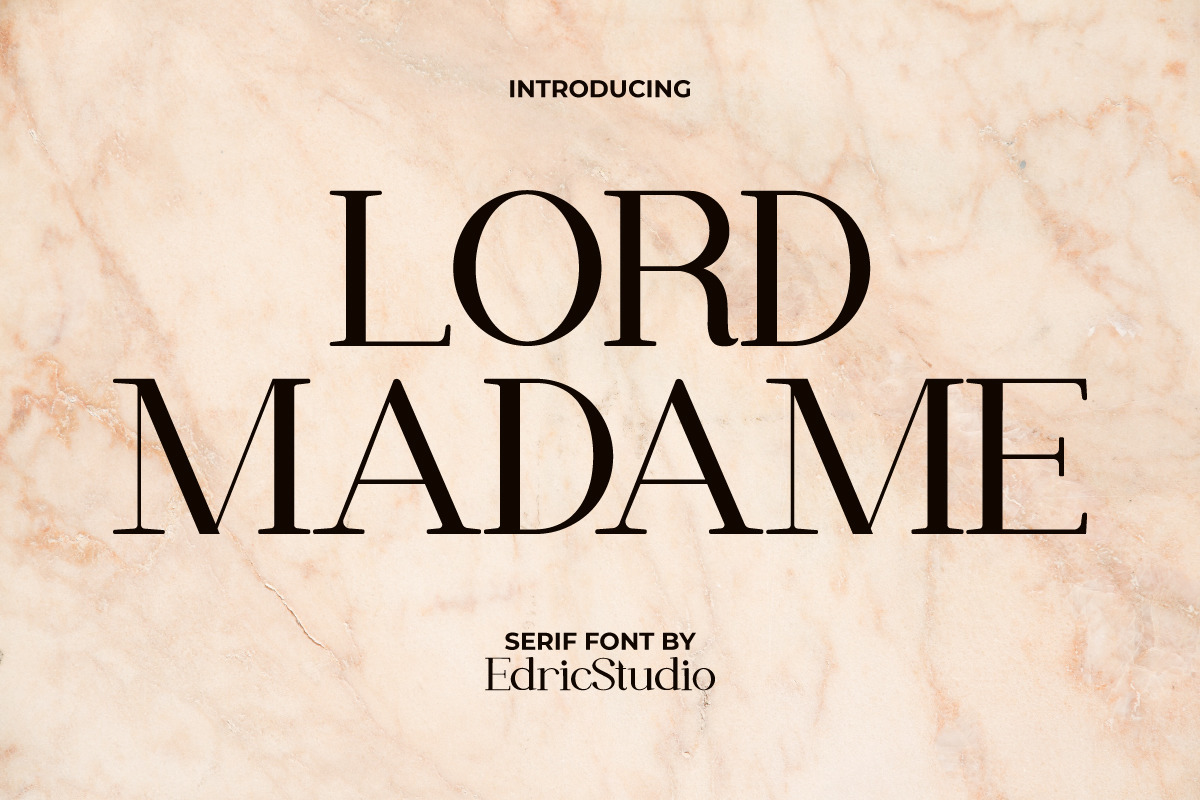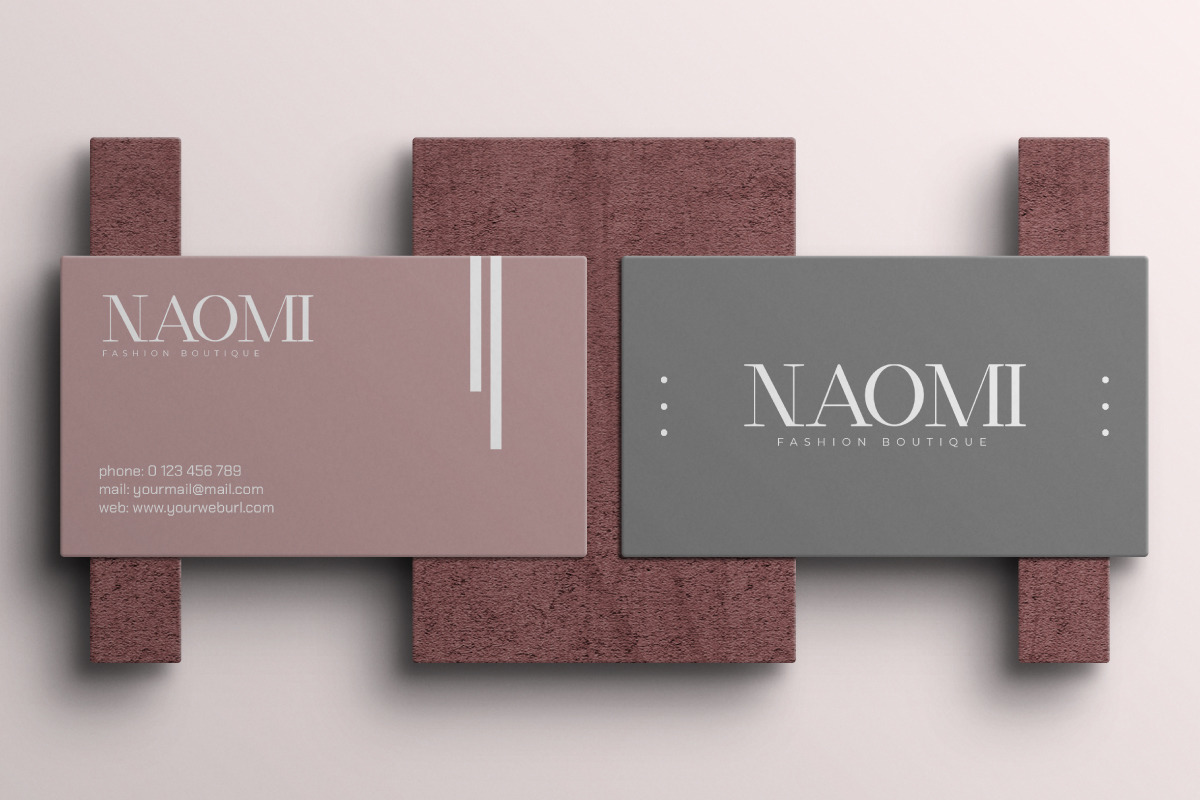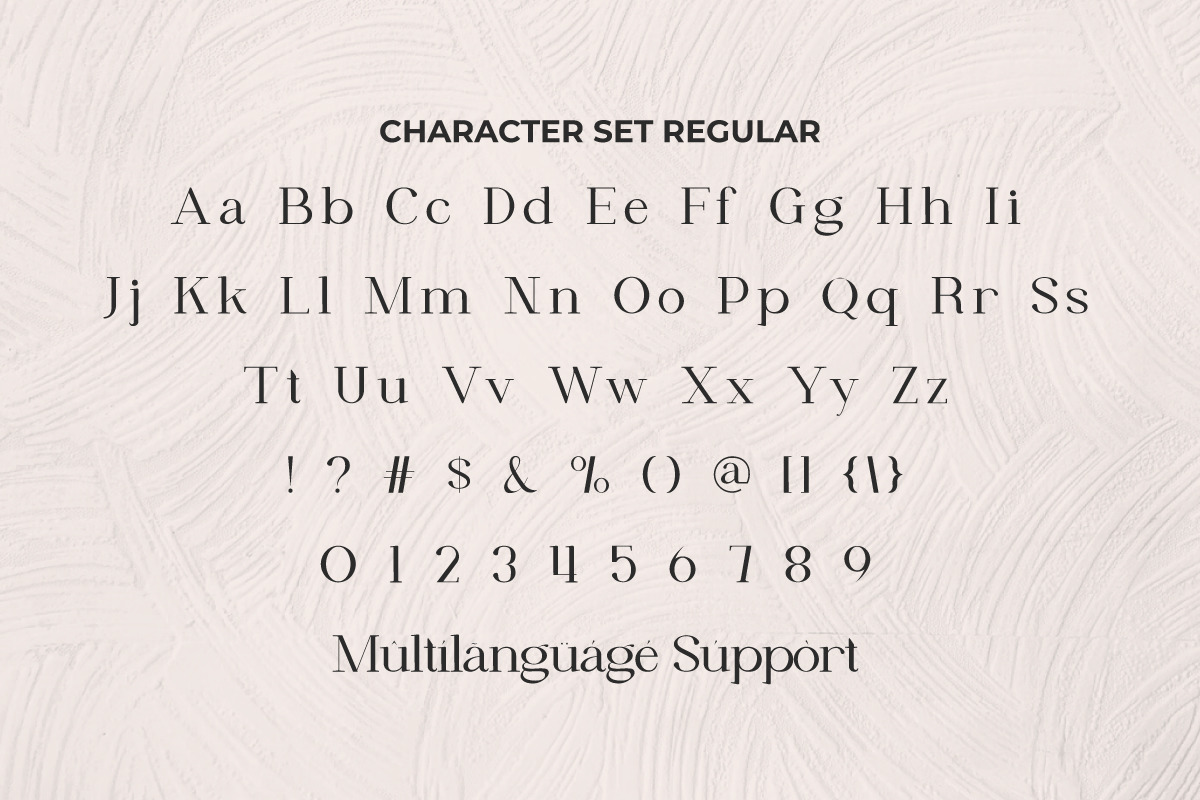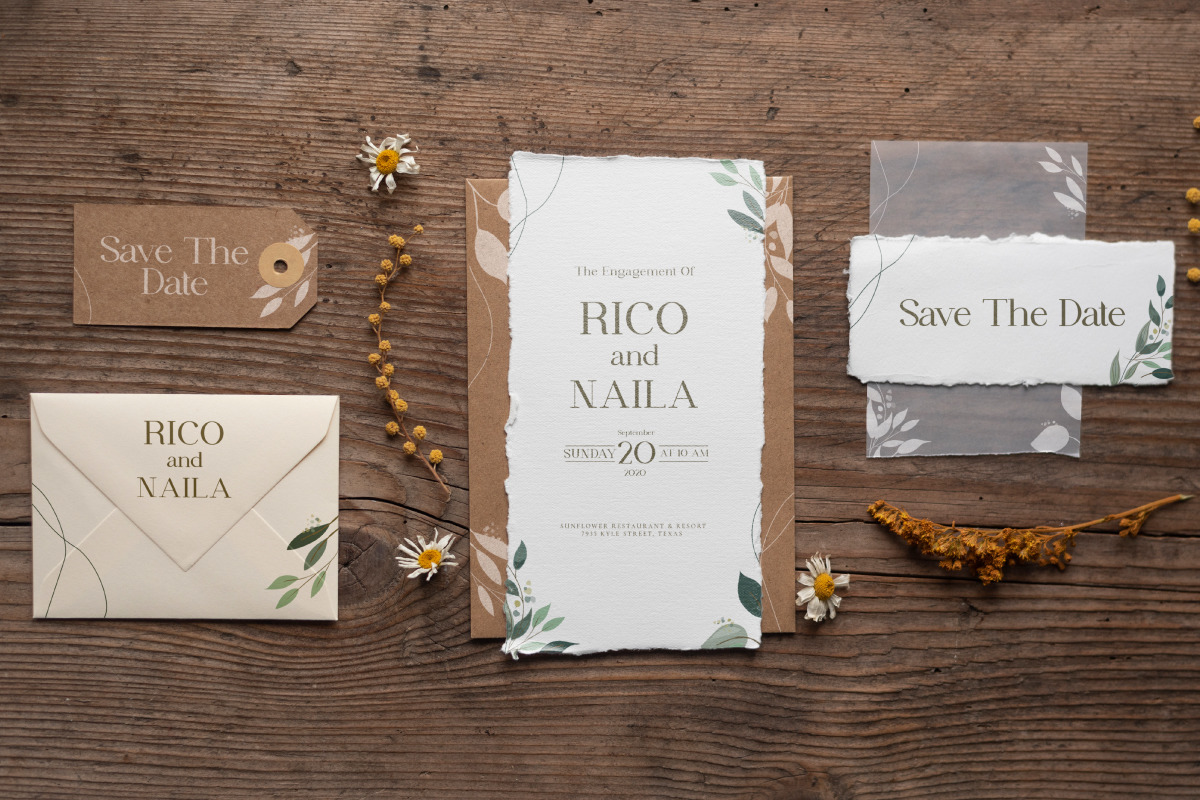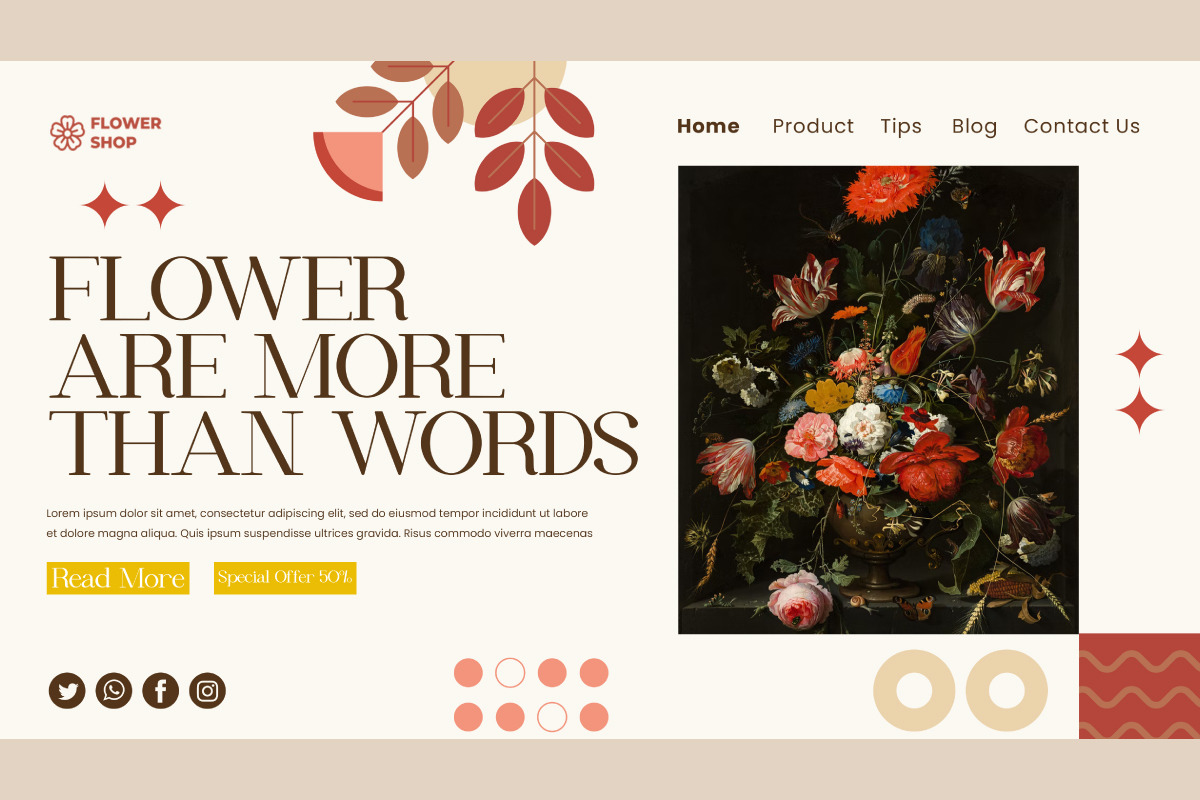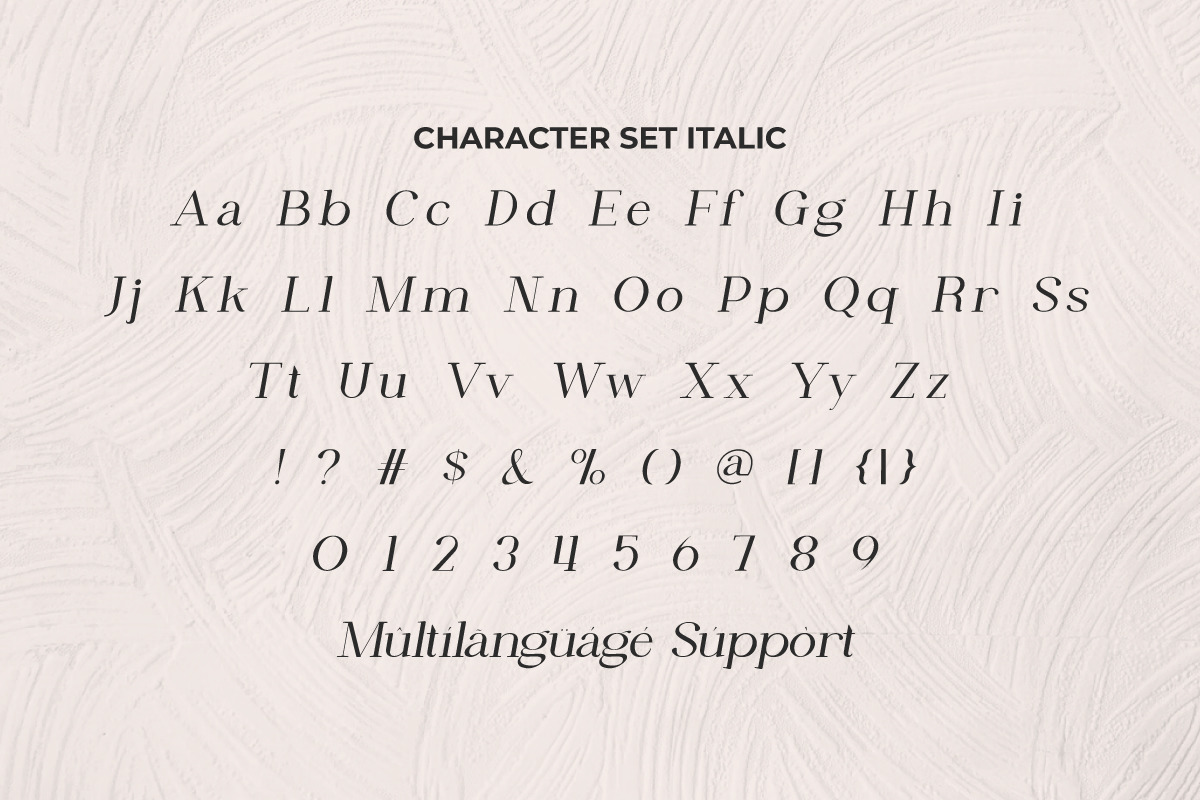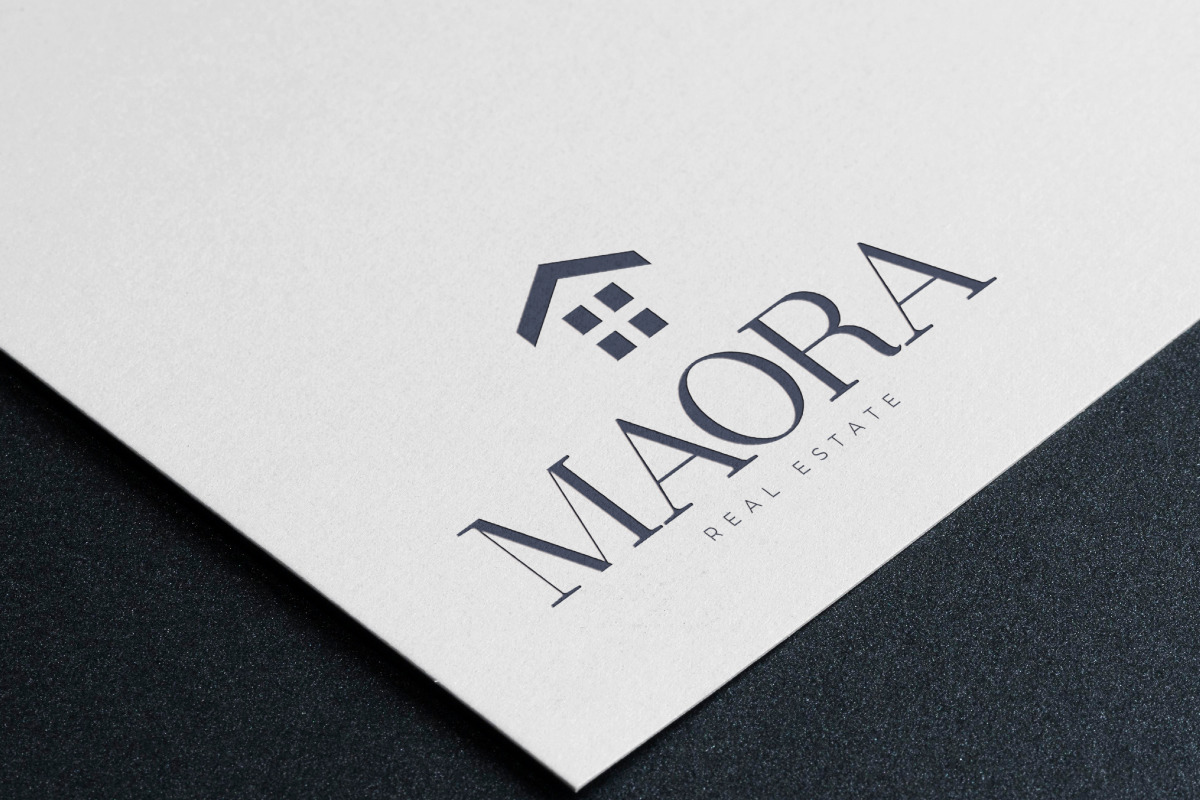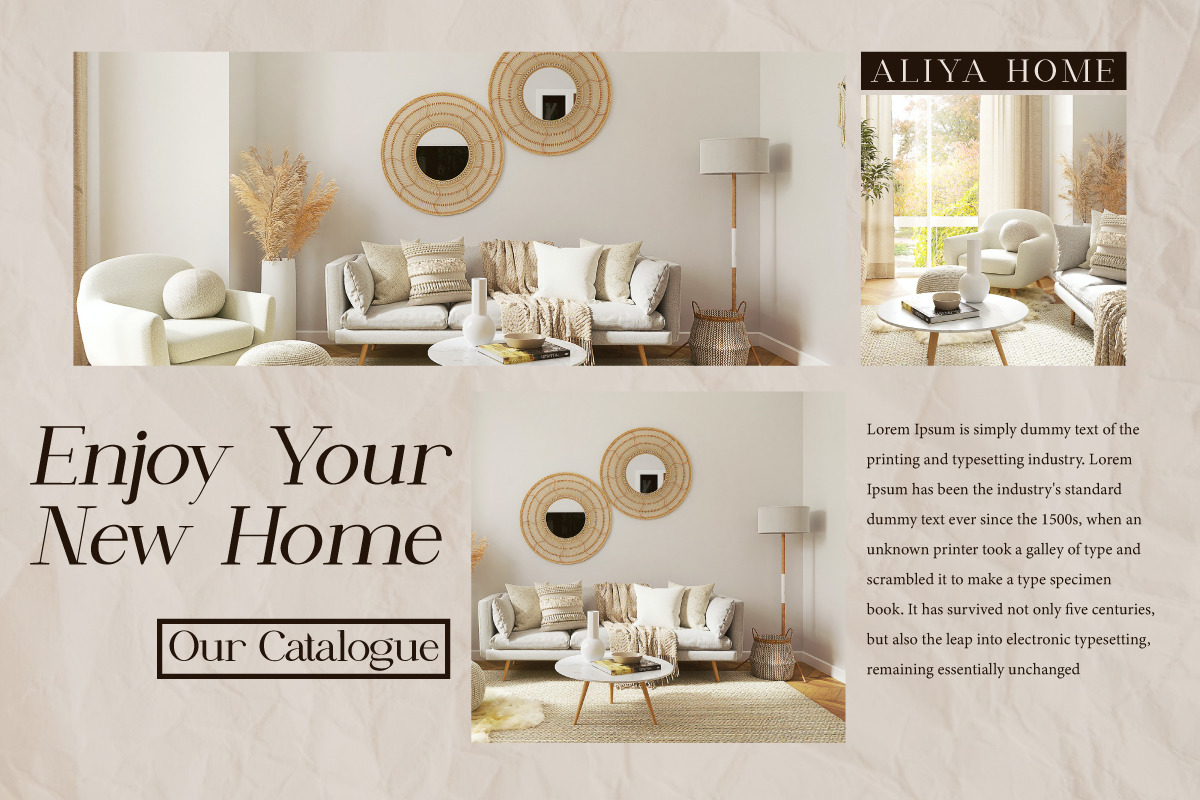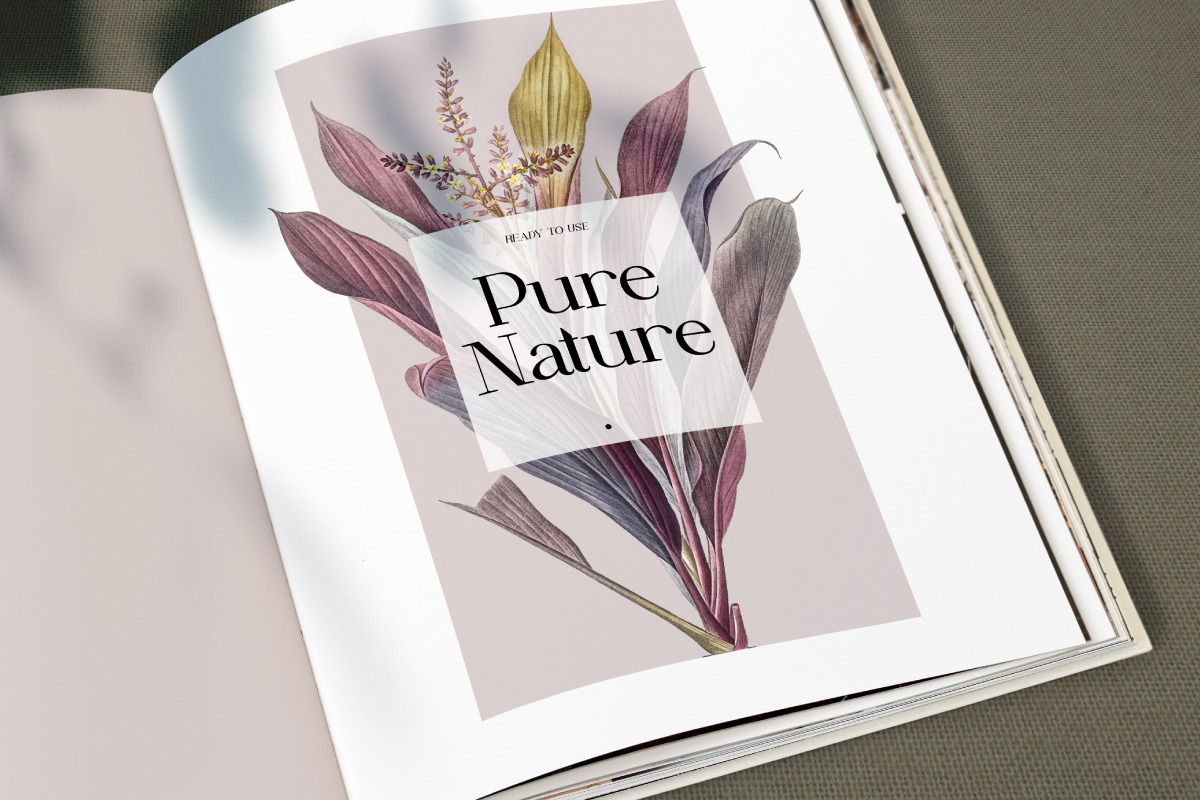
Lord Madame Font
Lord Madame Font is a charming serif font with vintage vibes designed by EdricStudio. This font is balanced between bold and thin lines which will be great for any industry, including : boutique, fashion, florist, furniture, homeware, photography, publishing, real estate, restaurant, travel agent, wedding, writer, and more!
Lord Madame Font comes in two styles : Regular and Italic equipped with a full set of Uppercase and Lowercase Basic Characters, Number, large range of Punctuation and Symbol. It has a stunning characters set, perfectly managed with well spaced and kerning. Lord Madame Font will be great for any projects (with extended license) including: billboard, business card, header, magazine, catalog, price tag, signage, stationery, website, wedding invitation, etc.